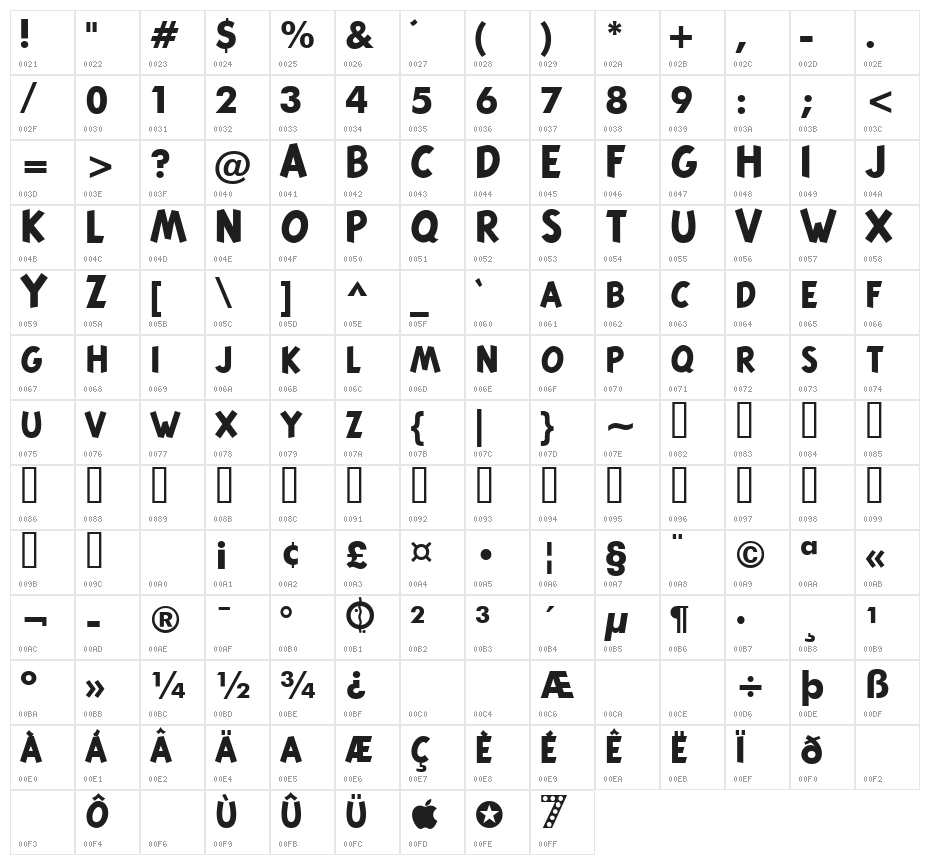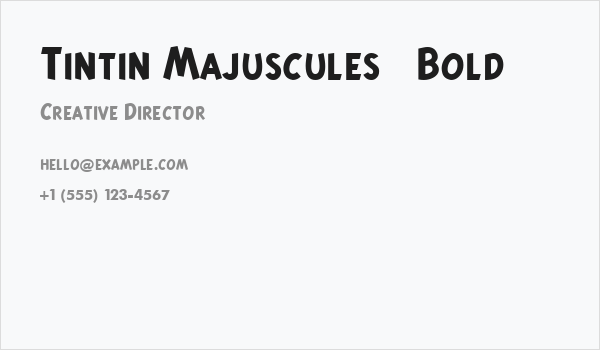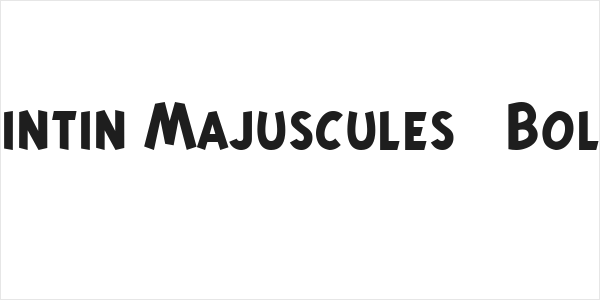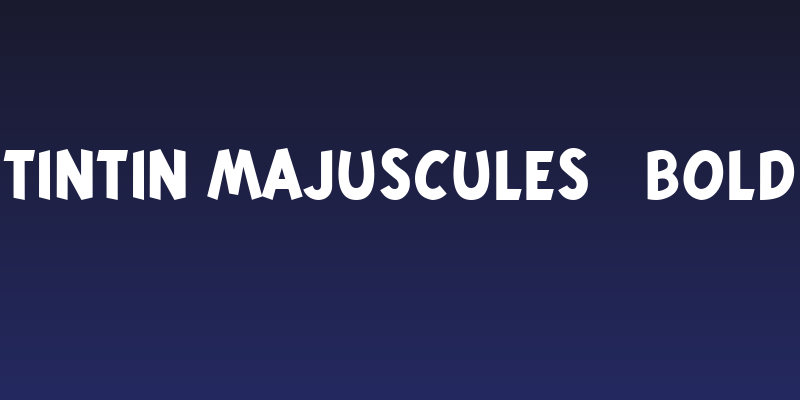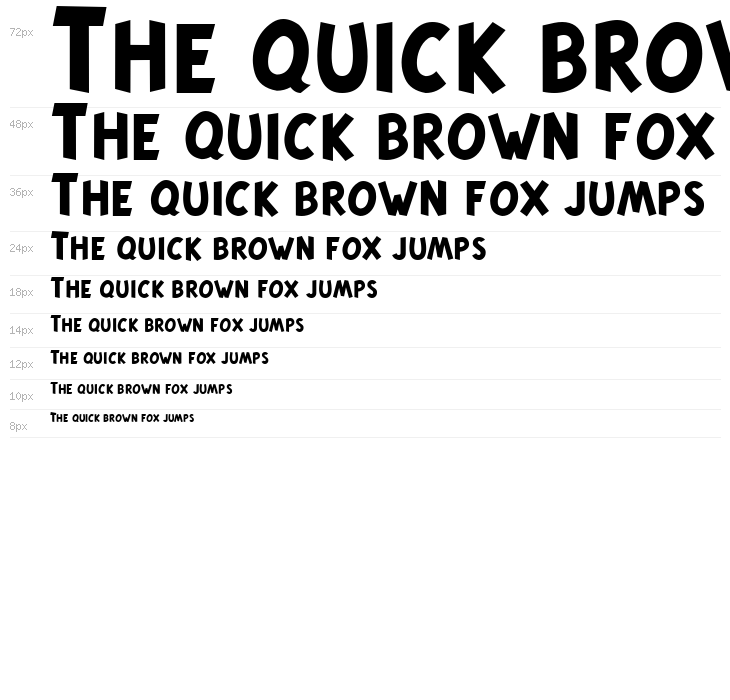
Tintin Majuscules Bold Font
Tintin Majuscules Bold Description
This bold and striking font features uppercase letters with a playful and dynamic style. The characters are thick and rounded, offering a sense of strength and boldness. The font maintains a consistent weight throughout, providing a uniform appearance. The spacing between characters is tight, enhancing its compact and impactful look. The numbers and special characters follow the same bold and rounded design, ensuring consistency across all elements. This font is ideal for creating attention-grabbing headlines or logos that require a strong visual presence.
| Overall Style | Playful, Bold, Dynamic |
| Proposed Projects | Ideal for headlines, logos, posters, and any design requiring a bold and playful aesthetic. |